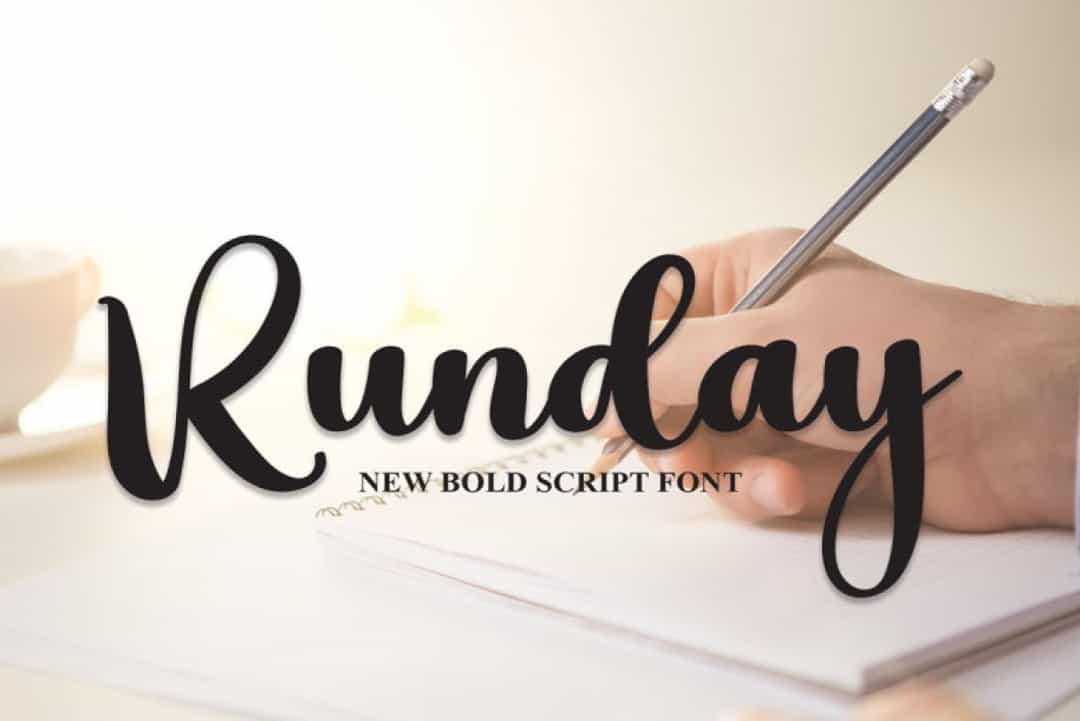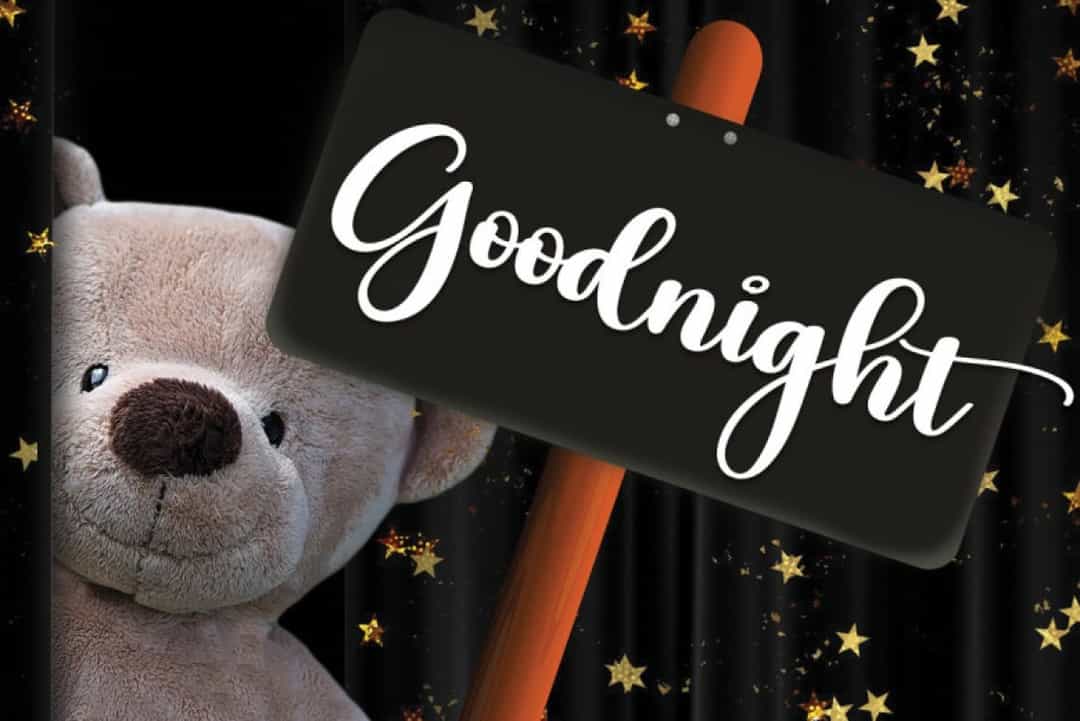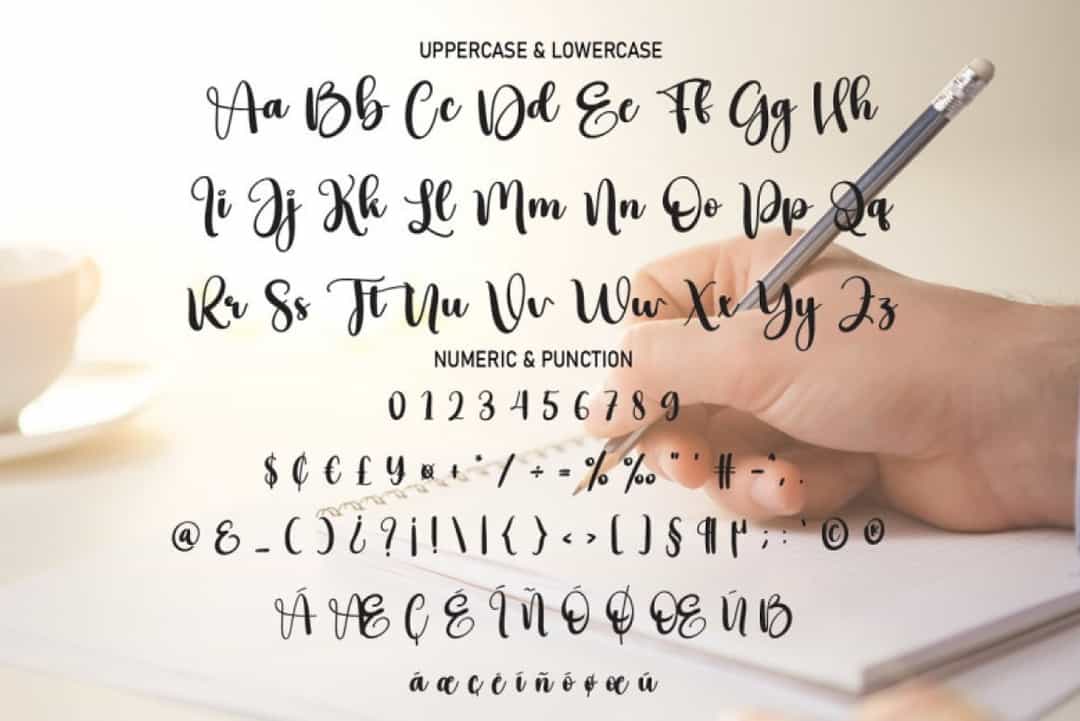
Discover Runday Font, part of the Calligraphy collection—a versatile and unique font perfect for adding a personal touch to your projects. Download it for free and enjoy crafting designs with style, from invitations to social media posts. This font is available exclusively for personal use, giving you the freedom to create without limits. Unlock your creativity with Runday Font today!
Runday is an iconic professional script typeface. Modern and stylish, its gorgeous artistic strokes offer endless creative potential for informal or formal use alike – perfect for creative concepts informal or formal, modern yet with imaginative ideas that make Runday an invaluable choice in situations requiring creative solutions such as invitation cards.